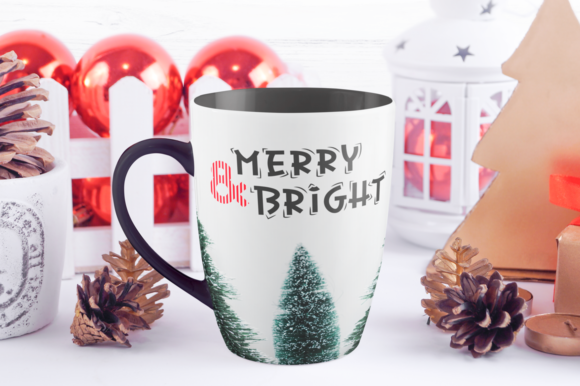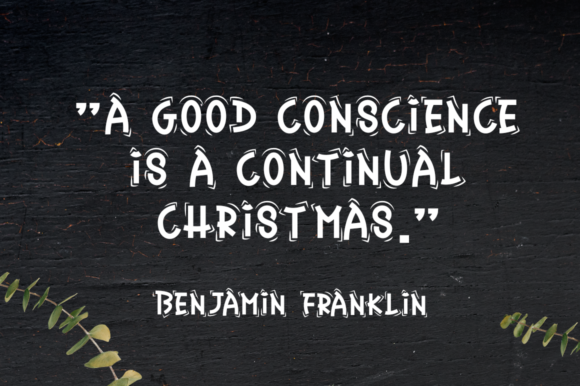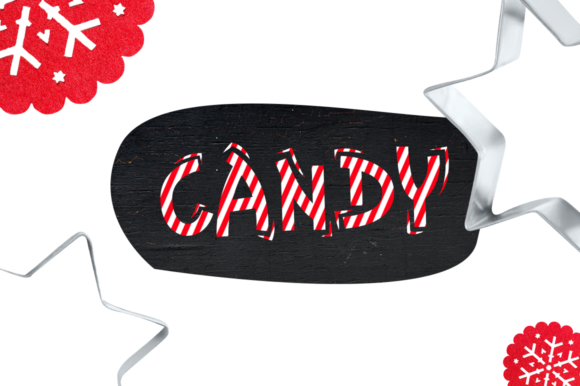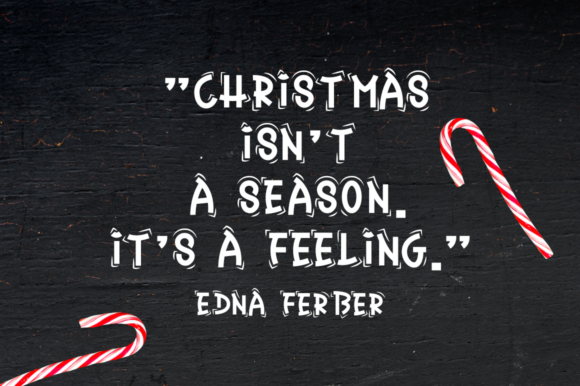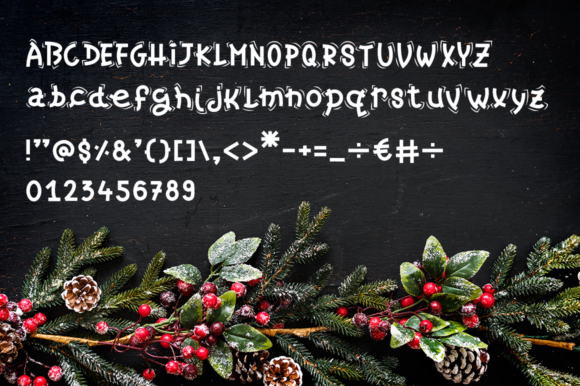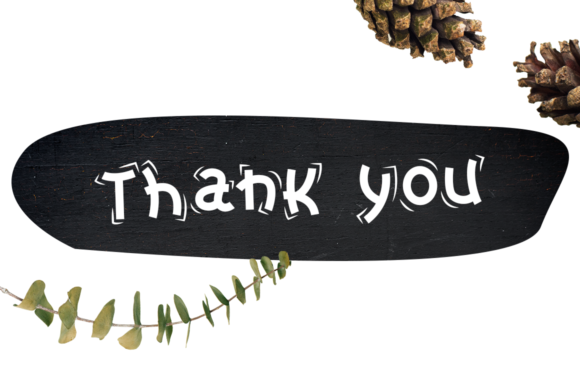
The Sweetest Font for the Holiday Season: A Deep Dive into Christmas Candy Font
First Impressions: What Makes Christmas Candy Font So Special?
Christmas Candy is a decorative and funky font that draws inspiration from the classic candy cane. It’s designed to bring a touch of whimsy and fun to your holiday projects, making it perfect for cards, Christmas invitations, t-shirt designs, logos, quotes, and more. The font comes with uppercase and lowercase letters, basic characters, standard numbers, and punctuation, giving you plenty of creative options.
- ✨ Unique and Festive Design: The font’s candy cane-inspired design is unique and instantly conveys the holiday spirit.
- ✅ Versatile: It can be used for a wide range of projects, from digital designs to print materials.
- 🎉 Easy to Read: Despite its decorative nature, the font remains surprisingly readable, even at smaller sizes.
- 🤔 Limited Use Cases: While versatile, this font is clearly designed with holiday projects in mind. It might not be the best choice for more formal or non-festive designs.
- ⚠️ Requires Attention to Detail: The intricate design can sometimes make it tricky to use in detailed or complex layouts.
The Story Behind Christmas Candy Font
While the true origins of the Christmas Candy font are unclear, it’s easy to imagine that it was created by a designer who loves the magic of the holiday season. Perhaps they were inspired by the classic candy canes of their childhood, or the sparkly snowflakes that fall gently outside their window during winter. Whatever the inspiration, the result is a font that’s both fun and festive.
Q: What type of projects is the Christmas Candy font best suited for?
A: The Christmas Candy font is perfect for holiday-themed projects like Christmas cards, invitations, t-shirt designs, and more.
Q: Does the Christmas Candy font support OpenType features?
A: Yes, the font comes with OpenType features, including stylistic alternates and glyphs, which you can access in compatible design software.
Q: Is the Christmas Candy font easy to read?
A: Despite its decorative nature, the Christmas Candy font is surprisingly readable, making it suitable for both headlines and body text.